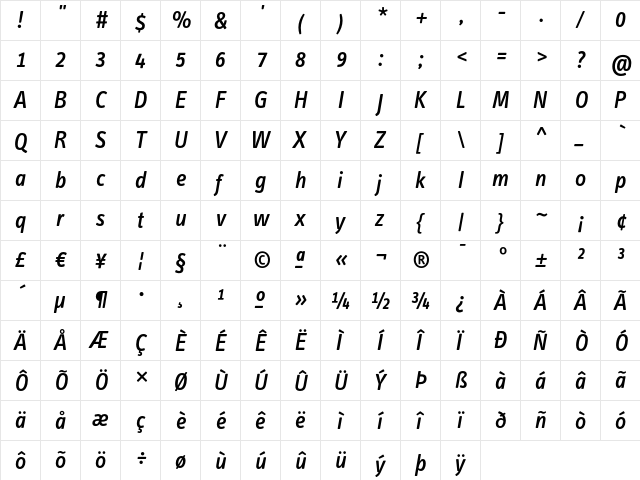
InfoTextMediumTf Italic
Design Context for InfoTextMediumTf Typeface
InfoTextMediumTf takes a measured approach to typography — its balanced proportions and neutral character make it a reliable workhorse for both digital and print work. Its italic angle brings a sense of urgency and motion to the letterforms.
Pro Tip: Use InfoTextMediumTf for emphasis, pull quotes, and subheadings where its slanted energy can add rhythm to the layout.